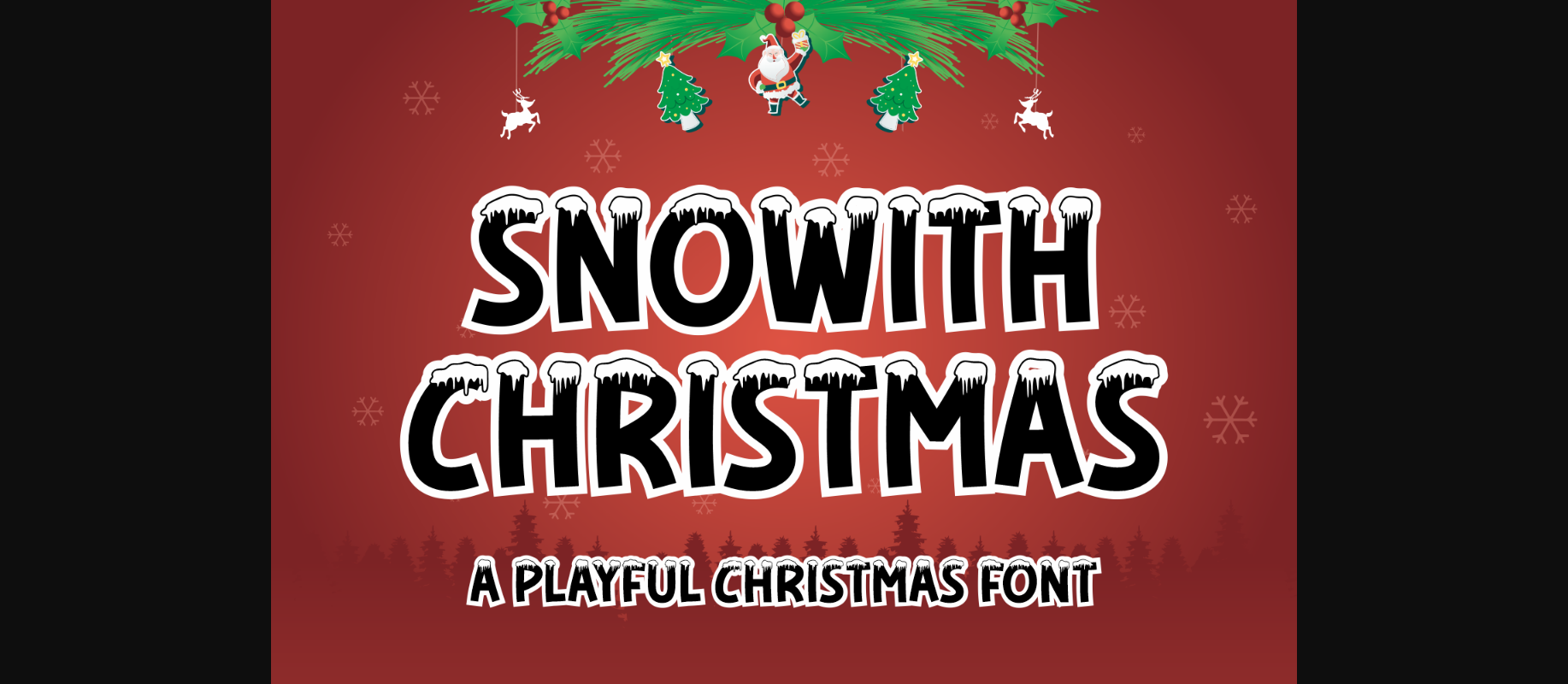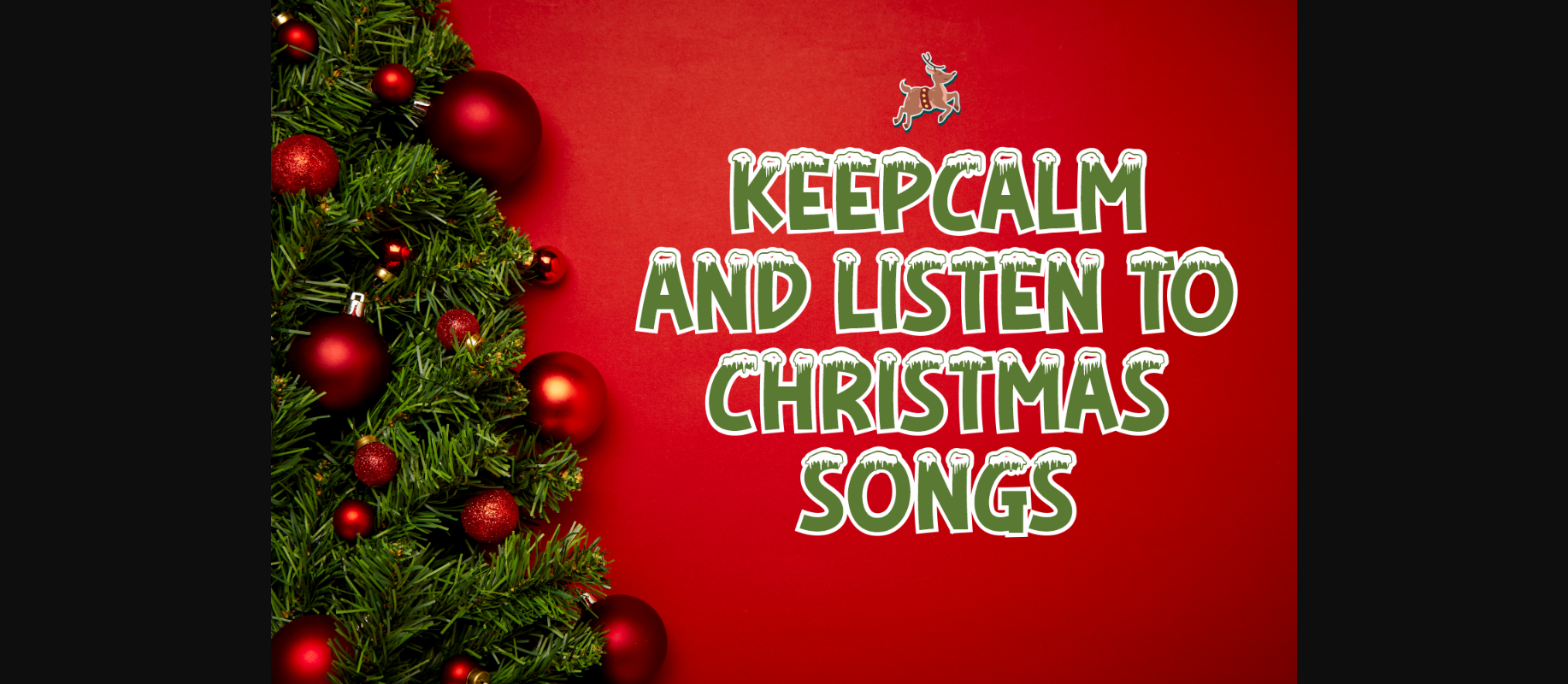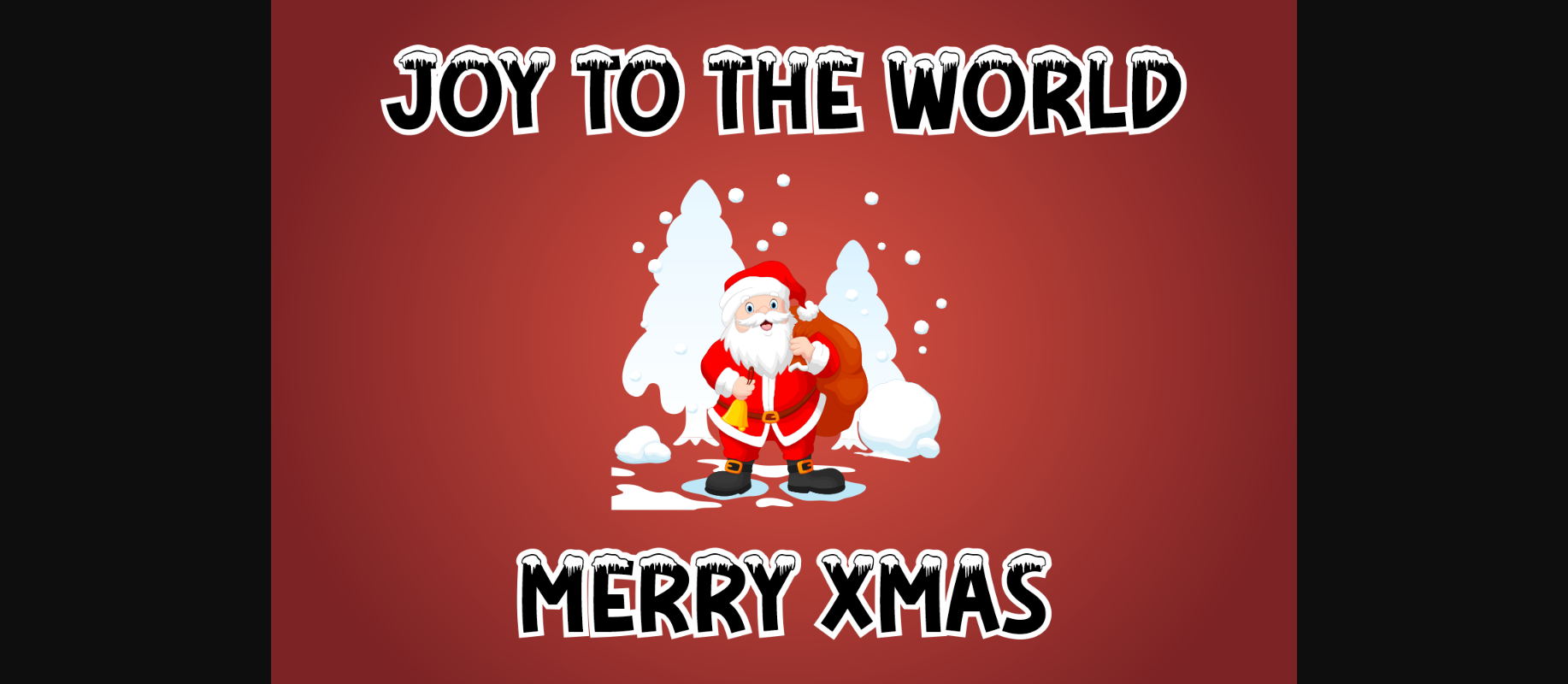
About Snowith Christmas Font
Snowith Christmas Font: Add a touch of winter wonder to your holiday designs with this decorative font featuring festive, snow-capped letters. Perfect for spreading the holiday cheer!